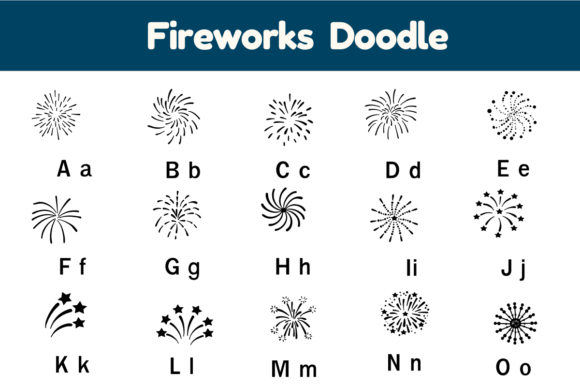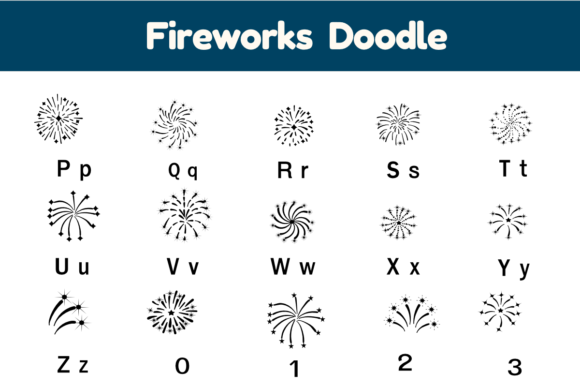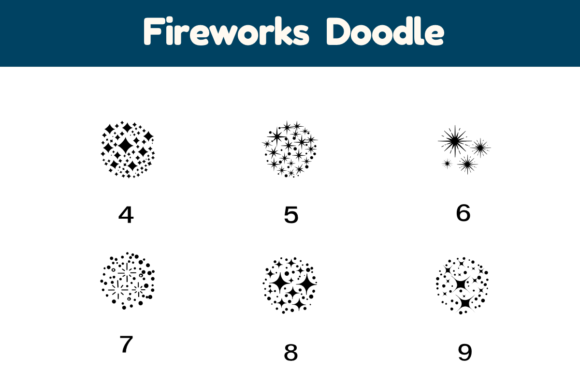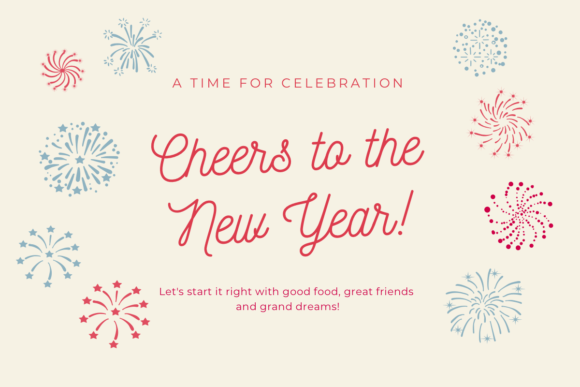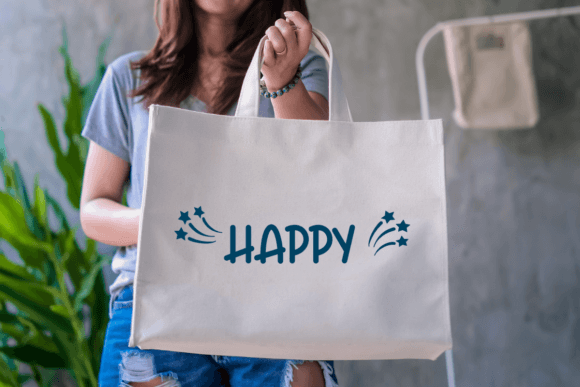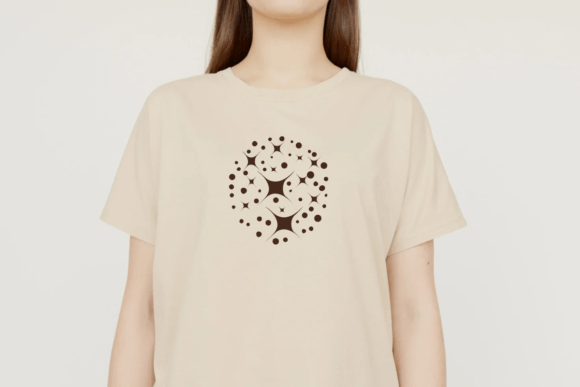
Introducing Fireworks Doodle Font: Add a Festive Touch to Your Designs
Are you looking for a fun and creative way to add a celebratory touch to your designs or messages? Look no further than the Fireworks Doodle Font! This delightful dingbat font is filled with tiny illustrations of fireworks, perfect for making your projects stand out. In this article, we’ll dive into the details of this exciting font and explore how you can use it to add a festive flair to your work.
What is Fireworks Doodle Font?
Fireworks Doodle is a unique font that replaces each letter with a cute doodle of colorful fireworks bursting in the sky. This fun font is perfect for designers, crafters, and anyone looking to add a playful touch to their projects. Whether you’re creating invitations, social media posts, or promotional materials, Fireworks Doodle Font is sure to bring a smile to your audience’s faces.
Perfect for Celebrations
Fireworks Doodle Font is especially perfect for celebrations like New Year’s Eve, Independence Day, or any other festive occasion. The font’s colorful and lively illustrations of fireworks will instantly evoke the feeling of excitement and joy associated with these events. Imagine creating eye-catching invitations, posters, or social media posts that set the tone for a fun and memorable celebration!
Key Features of Fireworks Doodle Font
- Fun and playful illustrations: Each letter is replaced with a cute doodle of colorful fireworks, adding a whimsical touch to your designs.
- Dingbat font style: Fireworks Doodle Font is a dingbat font, which means it’s made up of symbols and illustrations rather than traditional letters.
- Perfect for celebrations: The font’s theme is perfect for festive occasions like New Year’s Eve, Independence Day, or birthdays.
- Easily customizable: Use Fireworks Doodle Font to add a personal touch to your designs, and experiment with different colors and arrangements.
How to Use Fireworks Doodle Font
- Create festive invitations: Use Fireworks Doodle Font to design eye-catching invitations for parties, events, or celebrations.
- Add a playful touch to social media posts: Spice up your social media posts with colorful fireworks illustrations, perfect for grabbing attention and driving engagement.
- Design celebratory posters: Create bold and eye-catching posters for events, sales, or promotions using Fireworks Doodle Font.
Here are a few tips and tricks to help you get the most out of Fireworks Doodle Font:
- Experiment with colors: Try out different color combinations to match your brand or event theme.
- Mix and match illustrations: Combine Fireworks Doodle Font with other fonts or illustrations to create a unique look.
- Use it sparingly: Balance Fireworks Doodle Font with more traditional fonts to avoid overwhelming your design.
Fireworks Doodle Font is a fun and creative way to add a festive touch to your designs or messages. With its colorful illustrations of fireworks, this dingbat font is perfect for celebrations and special occasions. Whether you’re a designer, crafter, or simply looking for a unique way to express yourself, Fireworks Doodle Font is sure to bring a smile to your audience’s faces. So why not give it a try and add some sparkle to your projects?